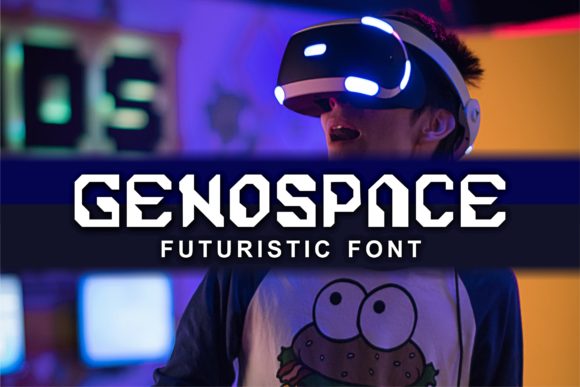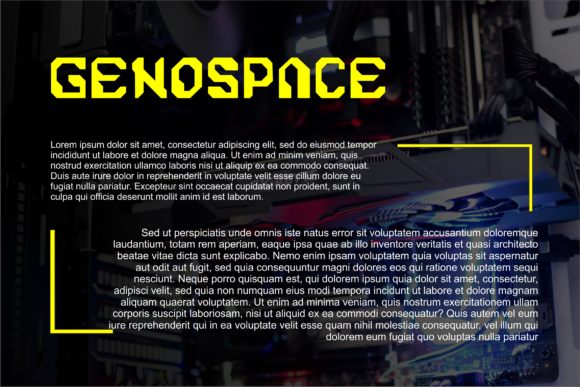
Introducing Genospace Font: The Ultimate Science Fiction Celebration
Are you ready to elevate your design projects to the next level with a font that embodies the essence of Science Fiction? Look no further than Genospace Font, a unique and captivating typeface that is sure to inspire your creativity. In this article, we’ll dive into the world of Genospace, exploring its robotic style, features, and the endless possibilities it offers for designers and crafters.
What is Genospace Font?
Genospace Font is a distinctive typeface that celebrates all things Science Fiction. Its robotic style is reminiscent of futuristic worlds, advanced technologies, and intergalactic adventures. With Genospace, you can add a touch of otherworldliness to your designs, making them stand out in a crowded creative landscape.
Key Features of Genospace Font
- Robotic Style: Genospace boasts a unique robotic style that is perfect for Science Fiction-themed projects, gaming designs, and futuristic branding.
- Highly Legible: Despite its futuristic look, Genospace is highly legible, making it suitable for body text, headings, and titles.
- Versatile: Genospace is a versatile font that can be used across various design projects, from posters and flyers to digital graphics and websites.
Inspiration and Design Ideas
Genospace Font is more than just a typeface – it’s a design inspiration. Its unique charm can spark creativity and help you develop innovative design concepts. Here are a few ideas to get you started:
- Sci-Fi Movie Posters: Create eye-catching movie posters that transport viewers to a galaxy far, far away.
- Futuristic Logos: Design bold, futuristic logos for tech startups, gaming companies, or Science Fiction-themed businesses.
- Digital Art: Use Genospace to add a touch of robotic elegance to your digital art pieces, from illustrations to graphic compositions.
- Web Design: Elevate your website designs with a futuristic font that captures the essence of Science Fiction.
Tips for Using Genospace Font Effectively
To get the most out of Genospace Font, follow these expert tips:
- Mix and Match: Combine Genospace with other fonts to create striking contrast and visual interest.
- Experiment with Colors: Try Genospace with bold, bright colors to amplify its futuristic impact.
- Play with Size: Use Genospace in various sizes to create visual hierarchy and emphasize key design elements.
Genospace Font is a game-changer for designers and crafters looking to infuse their projects with a Science Fiction twist. With its unique robotic style, versatility, and ease of use, Genospace is the perfect choice for anyone seeking to create standout designs. So why wait? Unlock the creative potential of Genospace Font today and transport your designs to a galaxy of limitless possibilities!